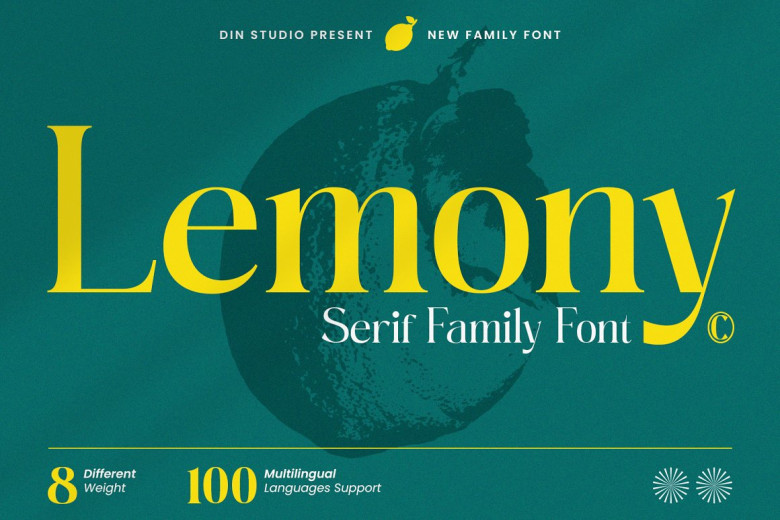
Lemony Font
Lemony offers 8 volume options and is a serif family that exudes formality and elegance. The main characteristic of the family are its small horizontal and vertical lines on letter bodies – these help readers focus their attention in the correct direction while reading letters.
You can use this font in any text size and weight. It has no restrictions regarding size or weight requirements.
Lemony Serif Font